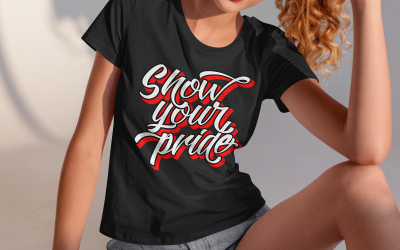
Elevate your brand's visual impact with Venture Bold, the ultimate choice for dynamic and captivating ad designs.
This distinctive font merges daring strokes with a powerful presence, ensuring your message stands out with confidence and flair.
Make every campaign unforgettable with the strength and adventure of Venture Bold.